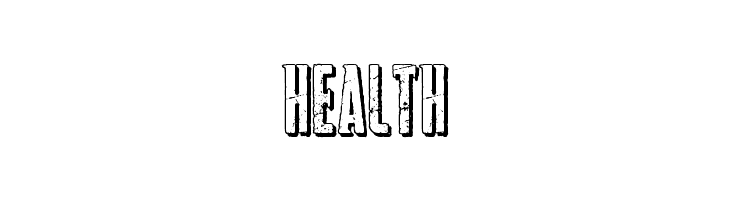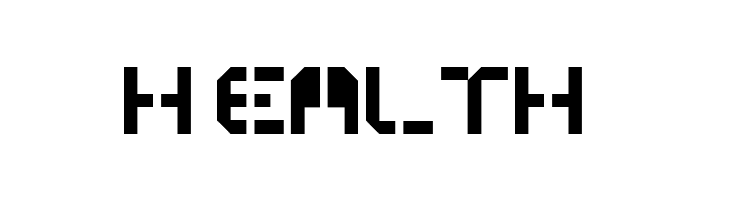
( CROLrene )
A decorative font made of screw-like symbols, offering a mechanical and industrial aesthetic.
( Font Emporium - web.archive.org/web/20020126112915/www.fontemporium.com/ )
A bold, condensed font with an industrial and retro feel.
( Fonts on us )
A bold, distressed font with a vintage, industrial style.
( Glitch - www.koenhachmang.com/webwork/glitch/ )
A bold, geometric font with a blocky, industrial style.
( HENRIavecunK )
A bold, stencil-style font with a rugged, industrial look.
( Helldunkel - www.helldunkel.com )
A bold, geometric stencil font with a slanted, modern design.
( Helldunkel - www.helldunkel.com )
A bold, geometric stencil font with a futuristic, industrial style.
( Helldunkel - www.helldunkel.com )
A bold, geometric stencil font with a modern, industrial aesthetic.
( Helldunkel - www.helldunkel.com )
A bold, slanted stencil font with geometric precision and industrial flair.
( JK Typeface - hiltonbrasfoot.wixsite.com/jktypeface )
A bold, structured font with block-like serifs and a vintage industrial feel.